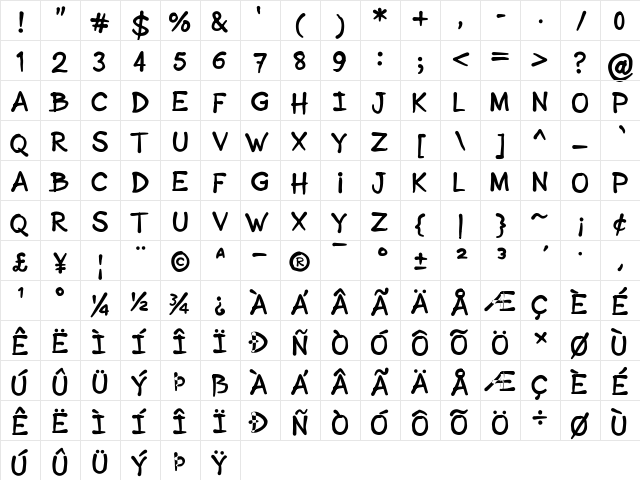
Sonic Comics Regular
Design Context for Sonic Comics Typeface
Sonic Comics trades formality for fun, with bouncy, characterful letterforms that bring warmth and energy to any project.
Well-suited to food and beverage brands with personality, educational materials, and fun-forward identities.
Font Pairing: Pairs well with a rounded or humanist sans for body copy, maintaining the friendly tone without relying on Sonic Comics to carry extended reading.
Pro Tip: Use Sonic Comics at larger display sizes where its expressive character can land. Pair with a clean, simple sans for body copy to maintain readability.